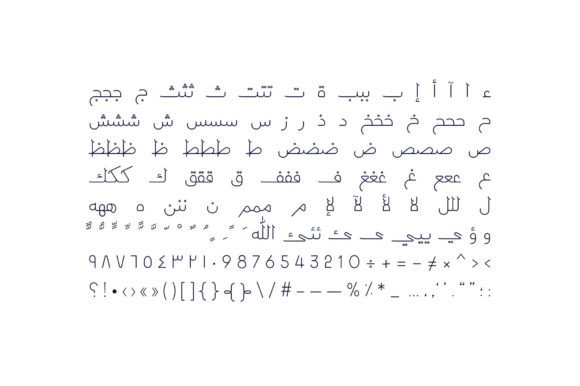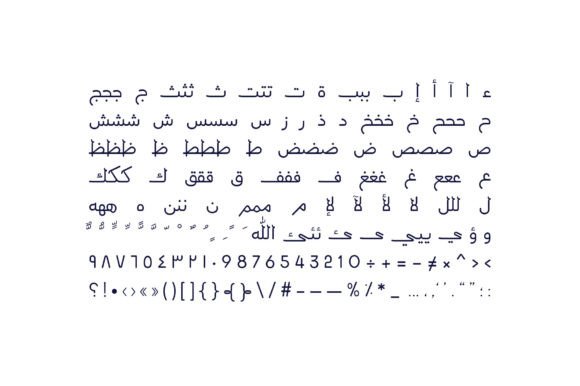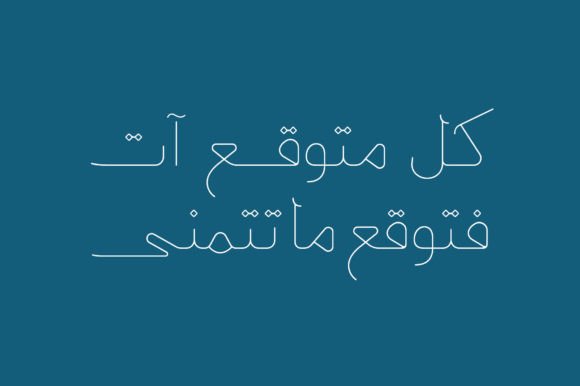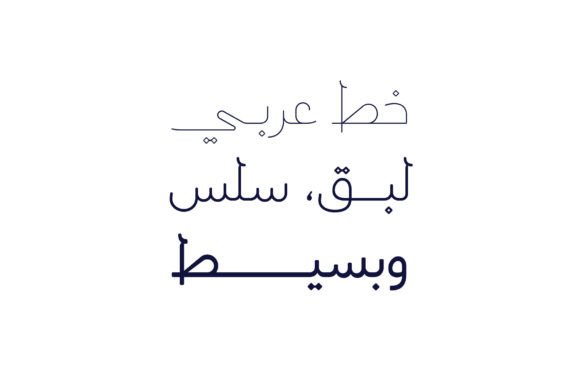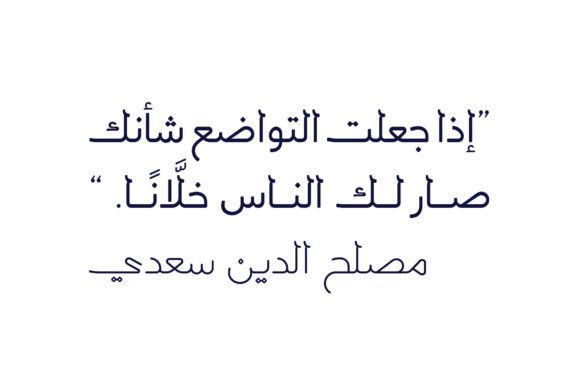
About Labaqah Font
“Labaqah” is an Arabic typeface that combines the traditional Naskh style with a subtle handwritten touch. This typeface offers three distinct weights and is designed to be versatile and suitable for various applications, including web, print, and mobile design. It’s important to note that “Labaqah” is an Arabic font, and its design is tailored to the Arabic script.
The blend of traditional Naskh elements with a handwritten flavor adds a unique and engaging aesthetic to Arabic typography. The three different weights provide flexibility, allowing designers to choose the most suitable weight for their specific project requirements. This versatility makes “Labaqah” a valuable tool for creating Arabic content that is visually appealing and well-crafted.
Whether you’re working on web design, printed materials, or mobile applications that involve Arabic text, “Labaqah” offers a well-crafted and thoughtfully designed typeface option. It can help you convey the desired tone and style in your Arabic-language projects, whether they are for commercial or creative purposes.